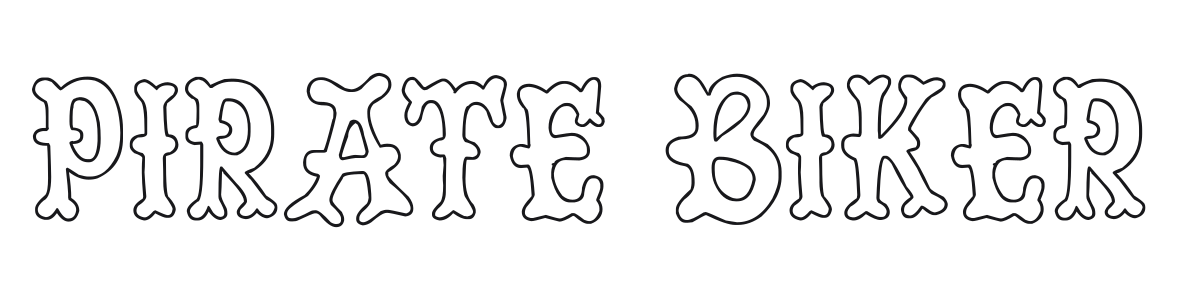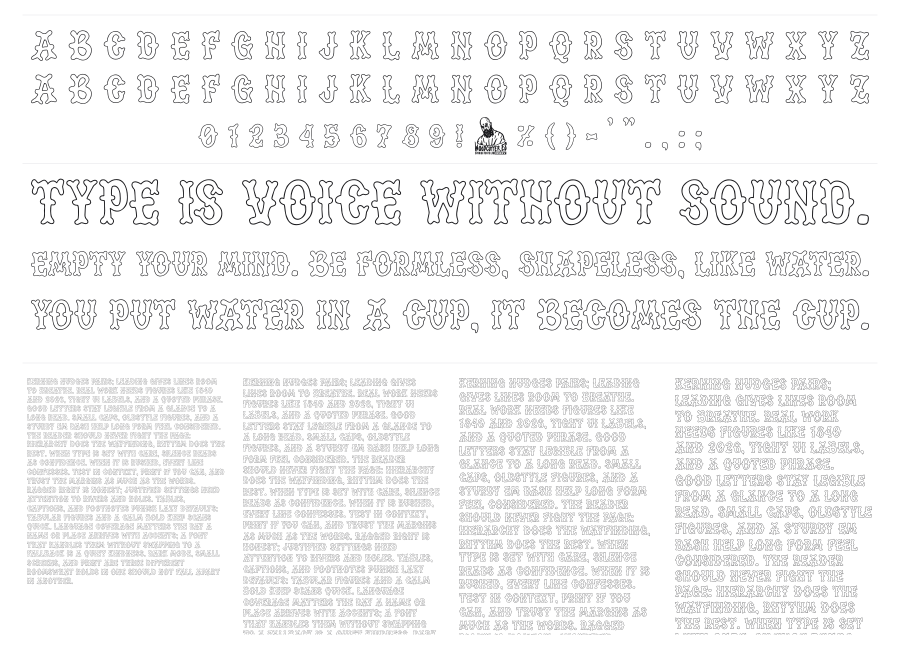
Pirate Biker
Pirate Biker is a chunky outlined serif display font with rough, bumpy contours that channel tattoo flash art and biker culture. Each character is built from heavy, wide forms with rounded notched serifs, enclosed in a thick outline that makes them feel embossed or carved. The aesthetic sits comfortably at the intersection of old western signage and outlaw motorcycle culture.